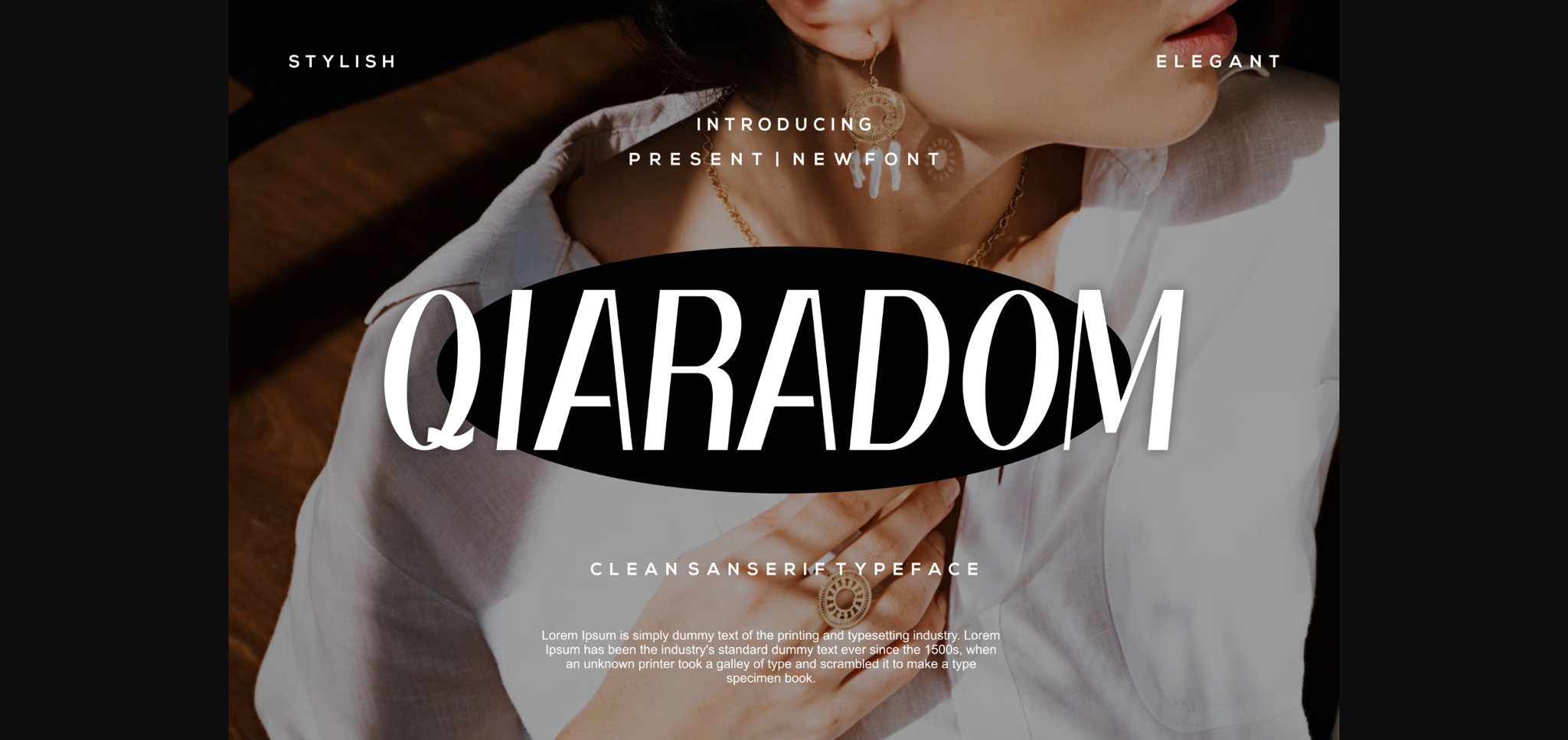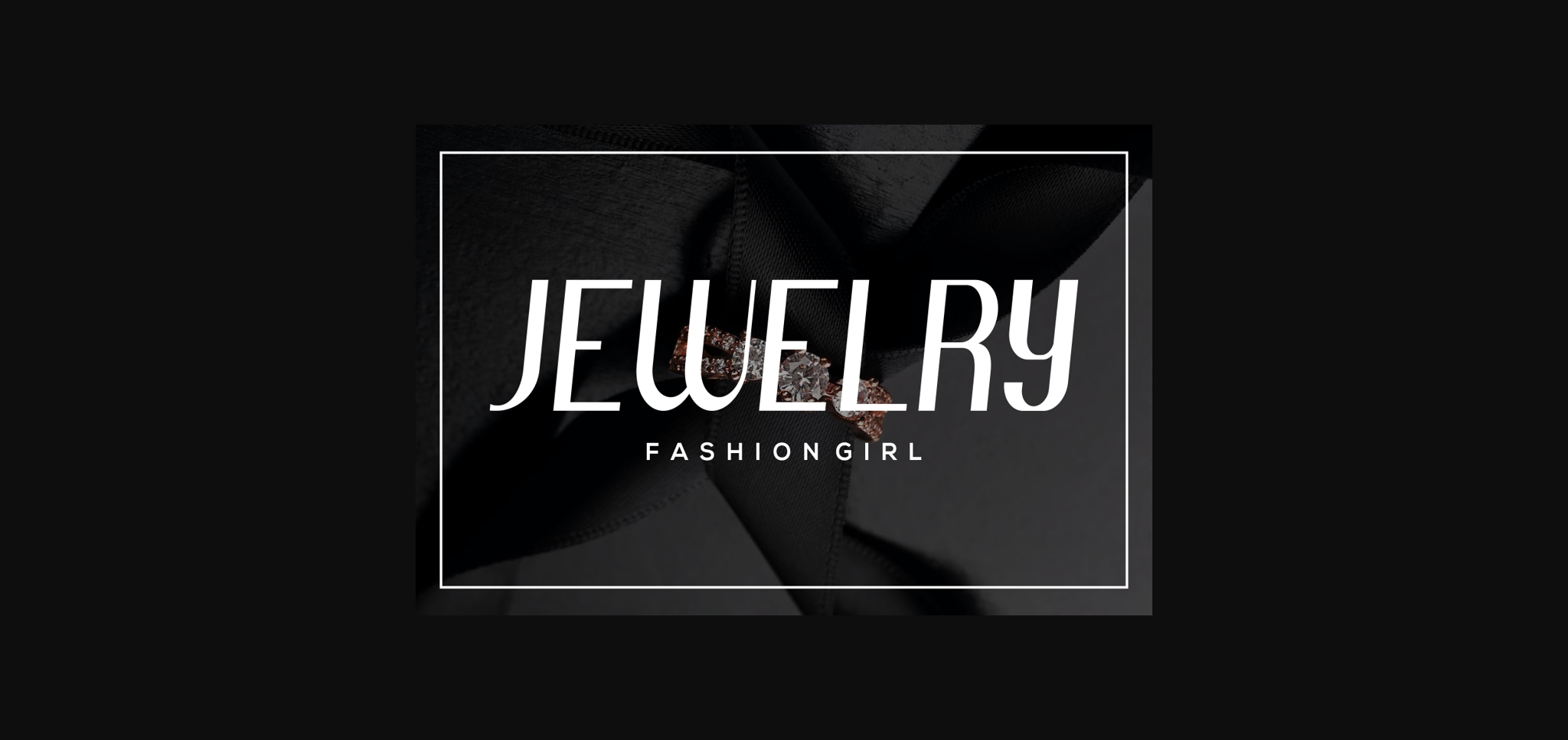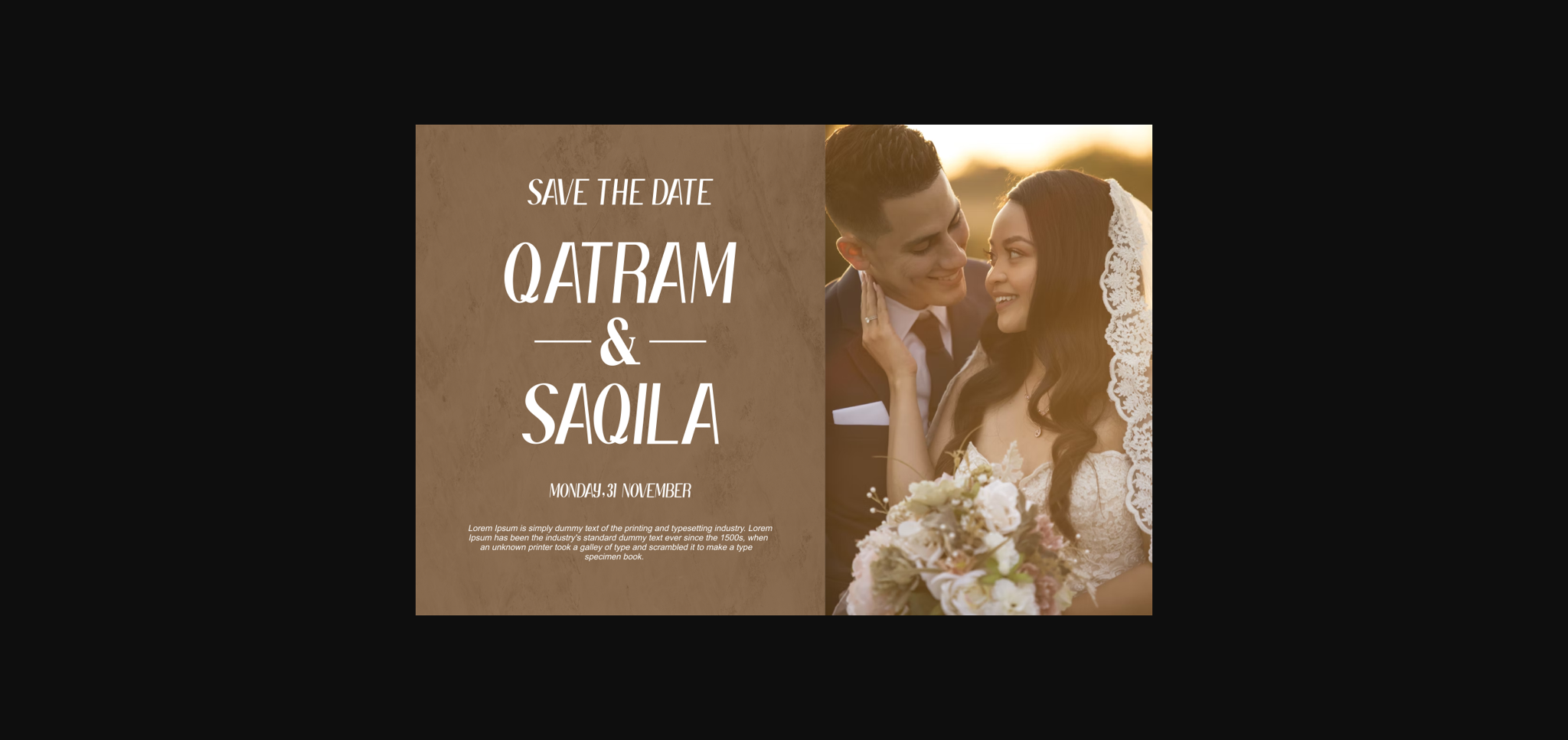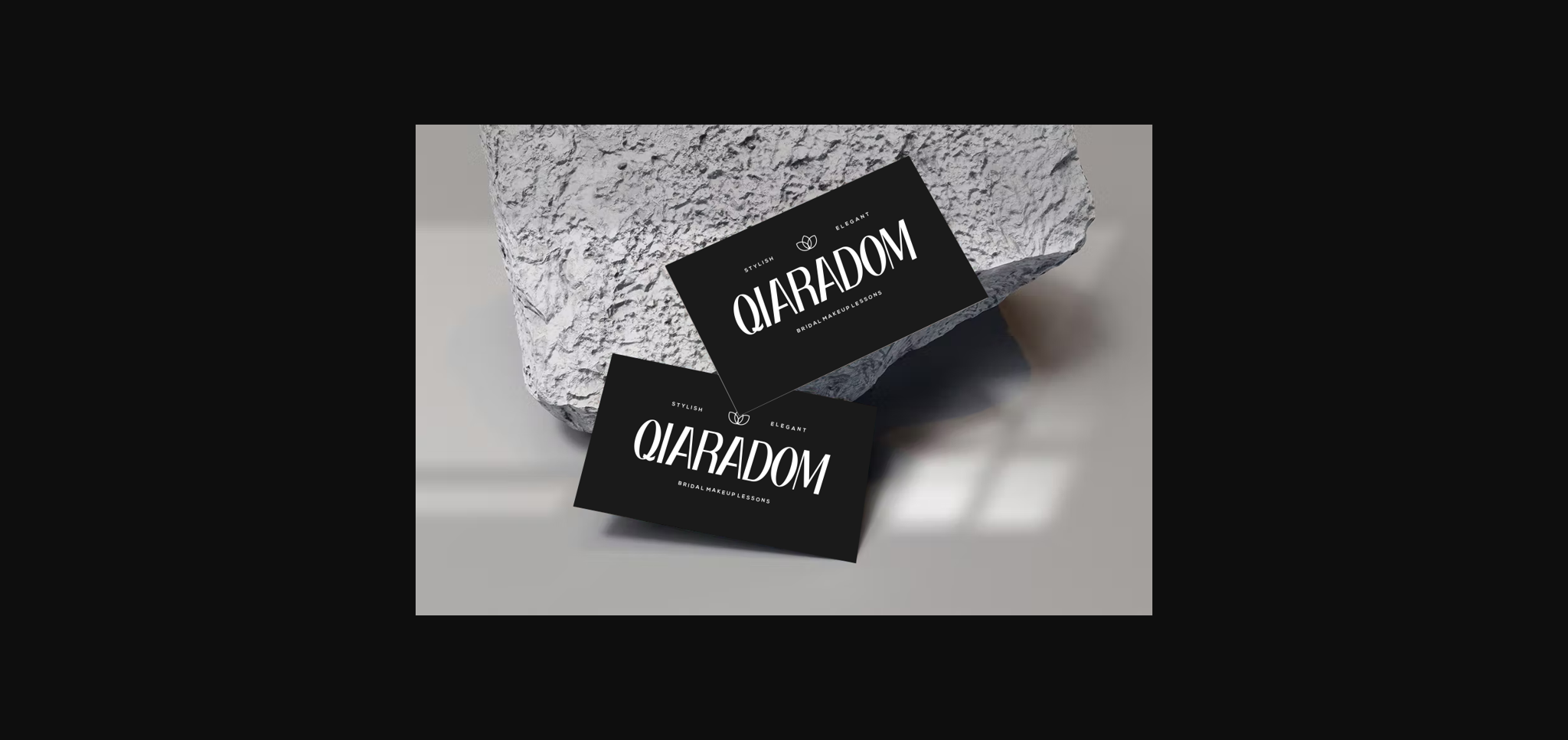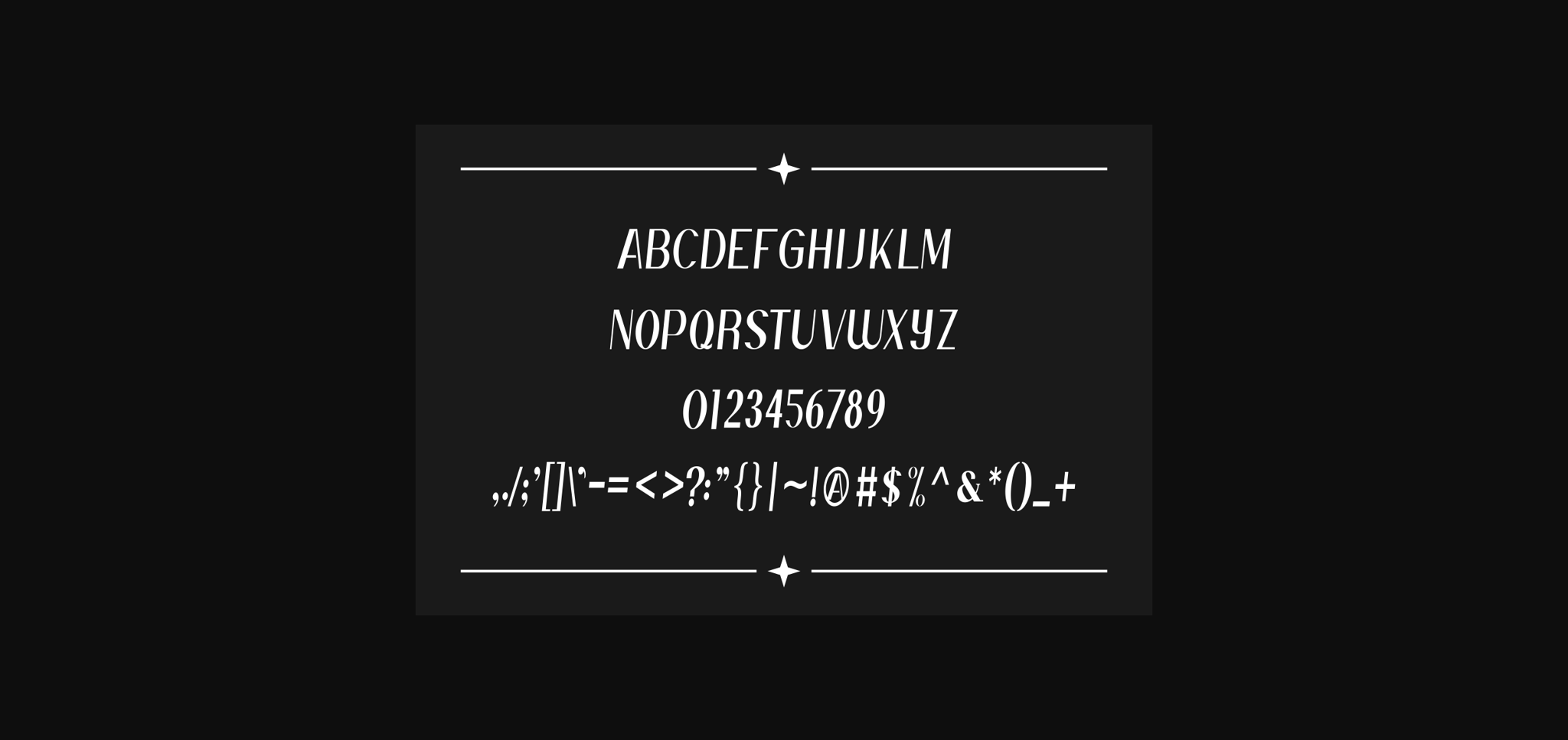
Qiaradom Font
About Qiaradom Font
Qiaradom is a bold and authentic sans-serif font. The font is suitable for any branding project like logo, t-shirt printing, esports, and many more. It will look outstanding in a wide range of contexts.